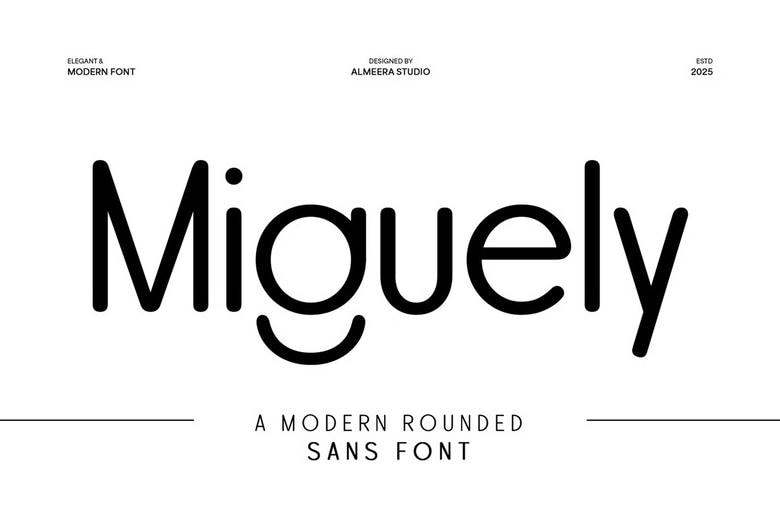
Miguely Font
Miguely is an attractive and stylish rounded sans typeface that balances the combination of classiness and easy-going-friendly style. Miguely is ideal in branding, children goods, web design, app design, packaging, and cafe design as a related concept comes with smooth yet inviting curves of warmth and playfulness.
This is a san serif, contemporary, and elegant font that is highly readable and looks contemporary, which is why it is suitable in any project when there is a need to add a soft, clean, and pleasant appearance to the project.
Its flexibility makes Miguely give harmony to a wide range of programs so that it can assign minimalist flair and professional lite to your typography. This font is the favorite one of the designers whenever that want some friendly, fresh and non problematically chic solution.
Miguely Sans Serif Font